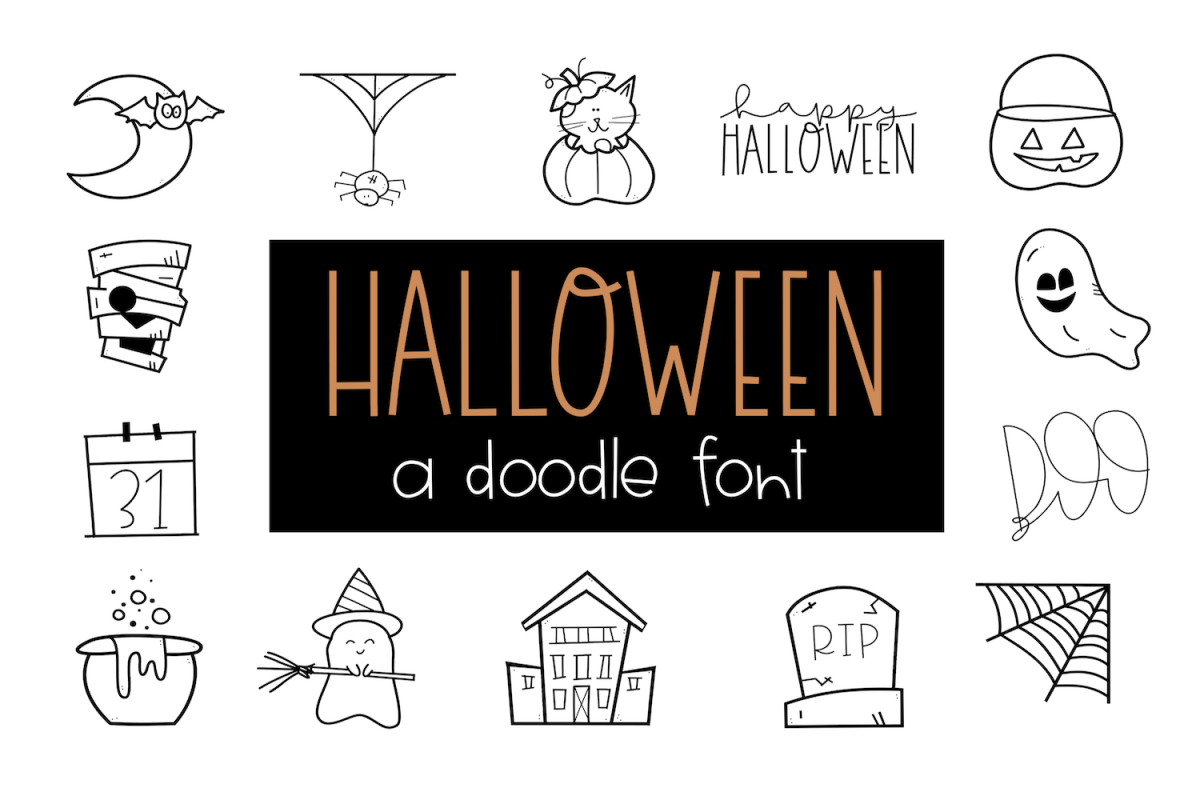
Creep It Real - A Spooky Halloween Doodles Font
Creep it Real is a doodle (dingbat) font.
It includes 52 hand-drawn, Halloween Doodles.
Instead of a letter showing up, a small doodle will!
You can resize the doodle, color the doodle and add text to the doodles!